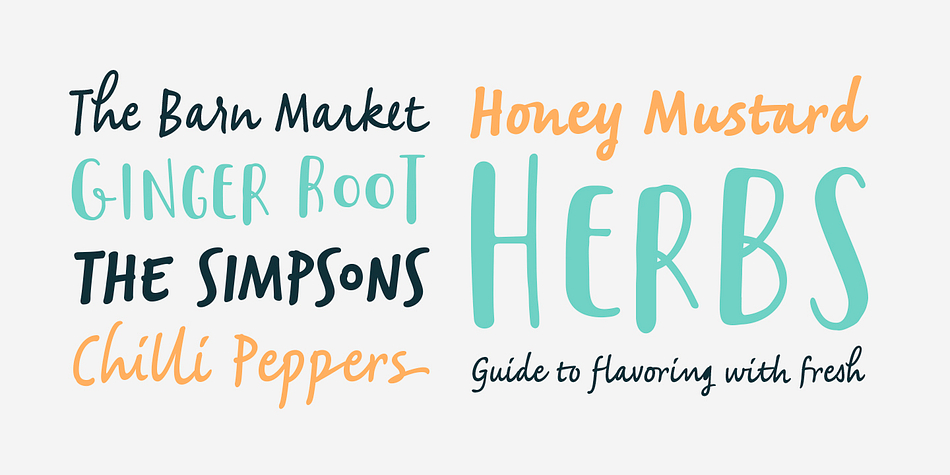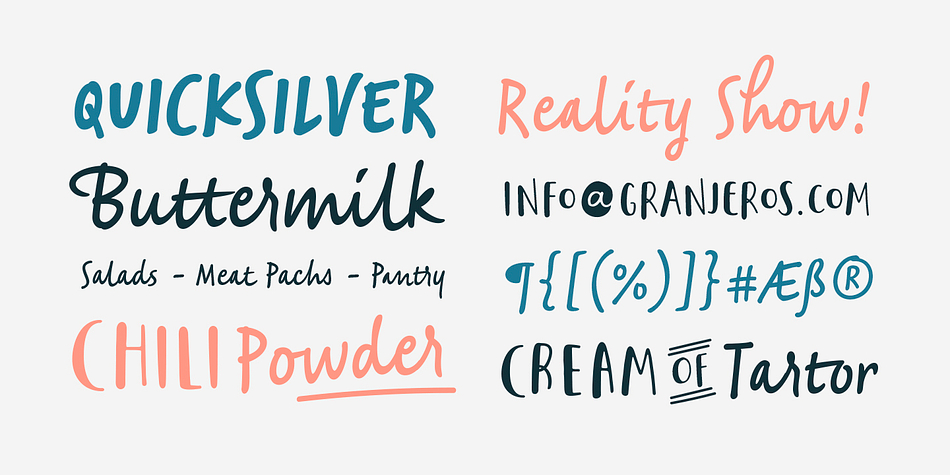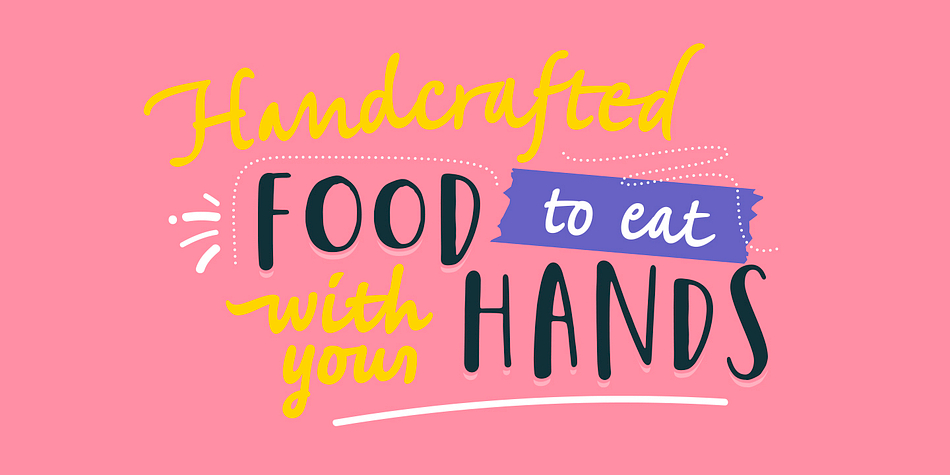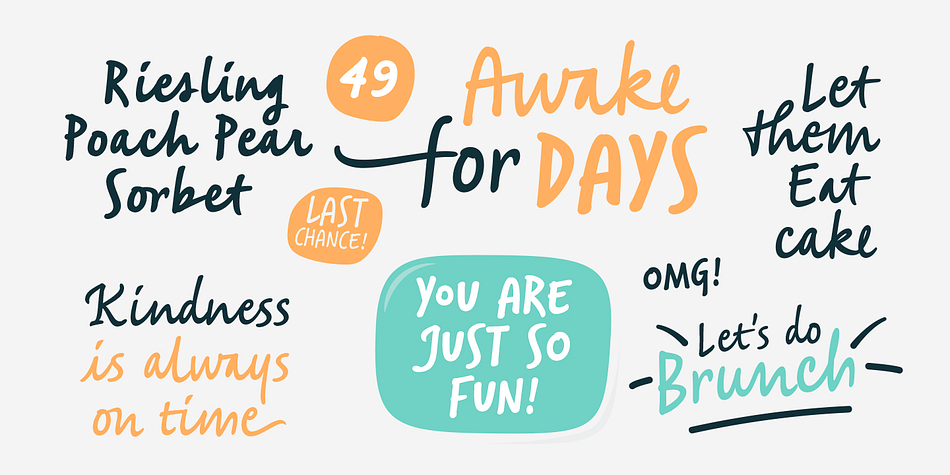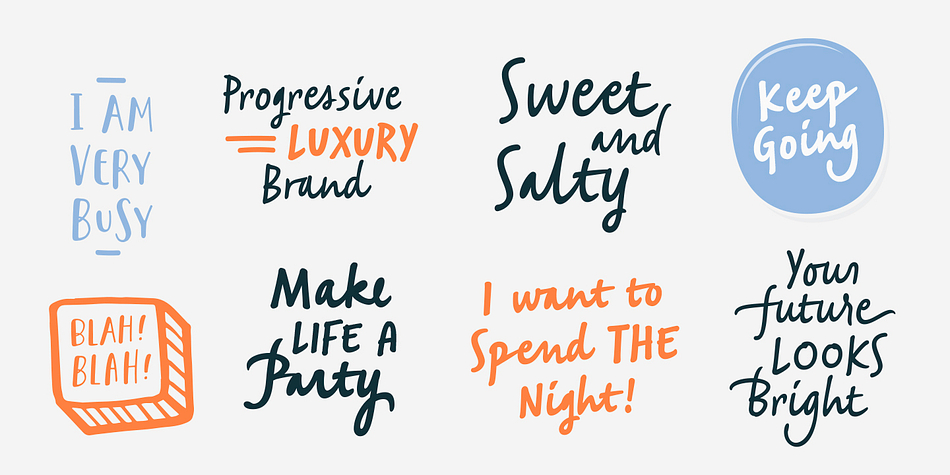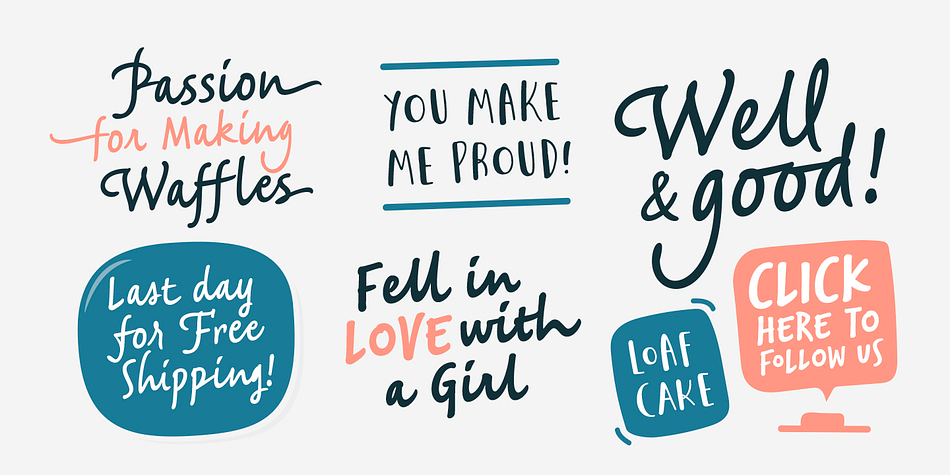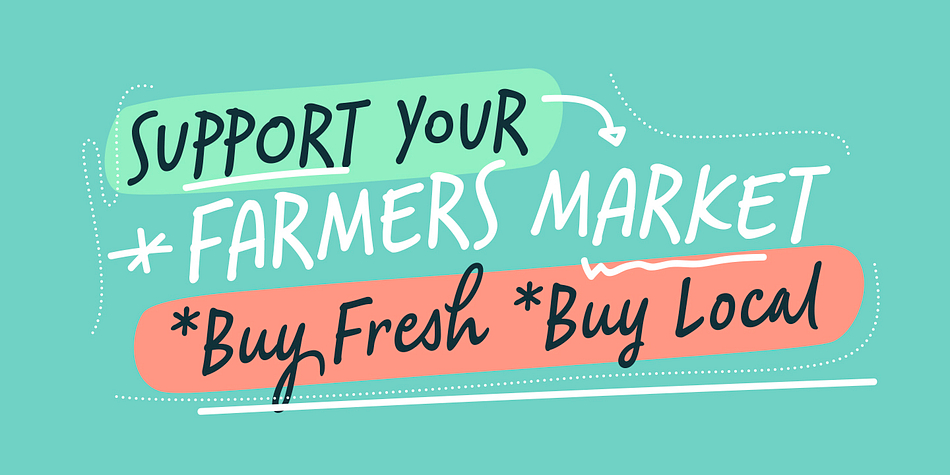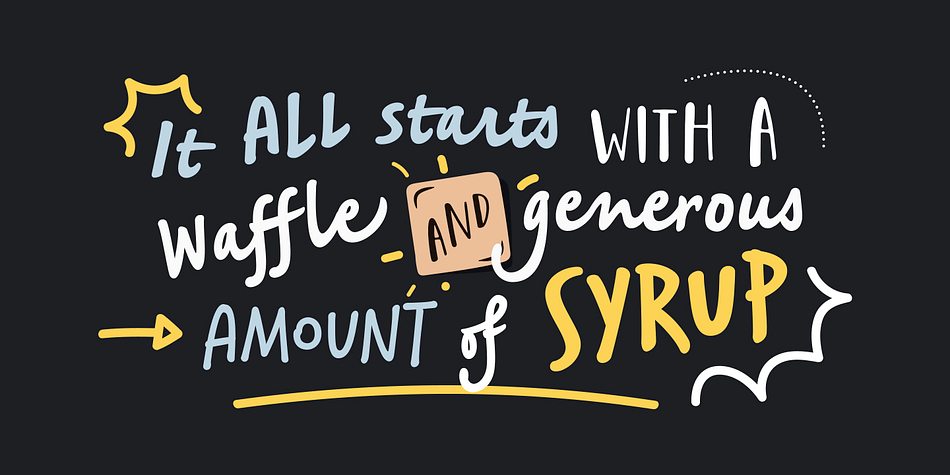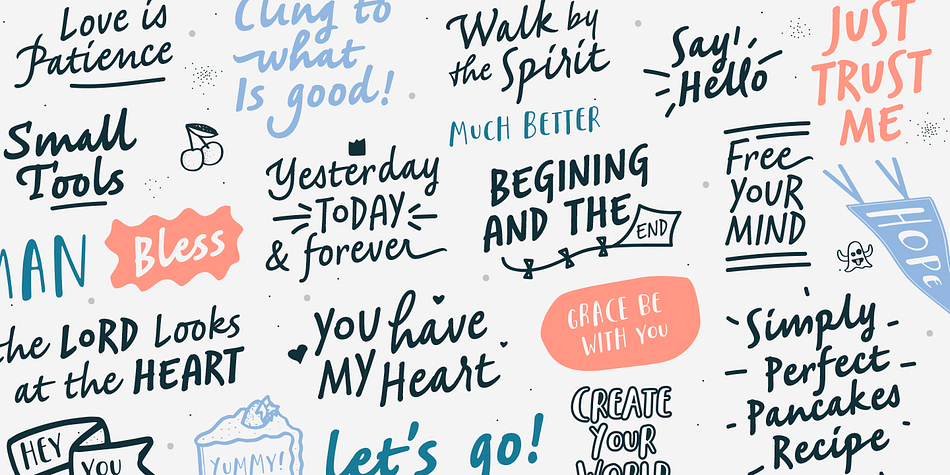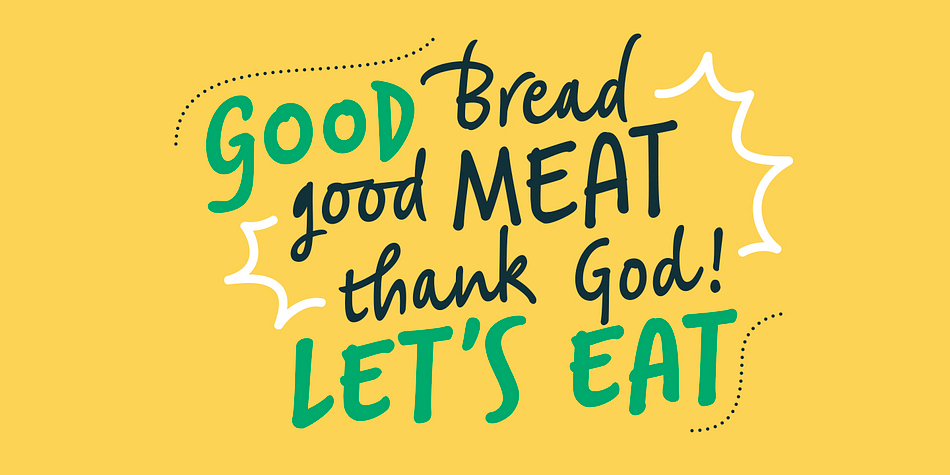
Saltbush is a display sans, hand drawn and script font family. This typeface has three styles and was published by Estudio Calderón.
Saltbush is a collection of 3 hand made fonts. Through an intelligent ligatures system we could design a typeface that imitates the strokes of a round brush pen and generates a flowing and organized writing.
Saltbush contains 3 variables: 2 scripts, regular and bold, each one has 776 glyphs and; a beautiful display font. This typefamily has an extended characters set to support the languages in central and east Europe, as well as the ones used in west Europe.
Keeping in mind the particularity of Saltbush design, it is possible to create beautiful graphics with a “hand made” look.